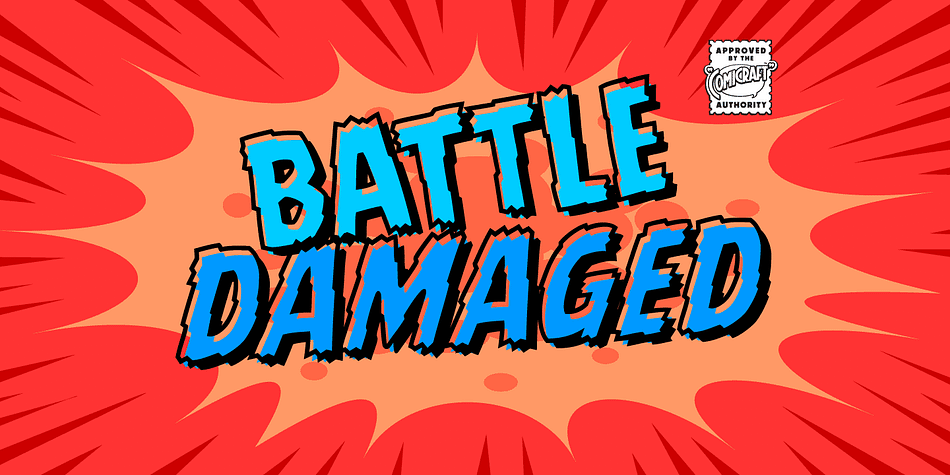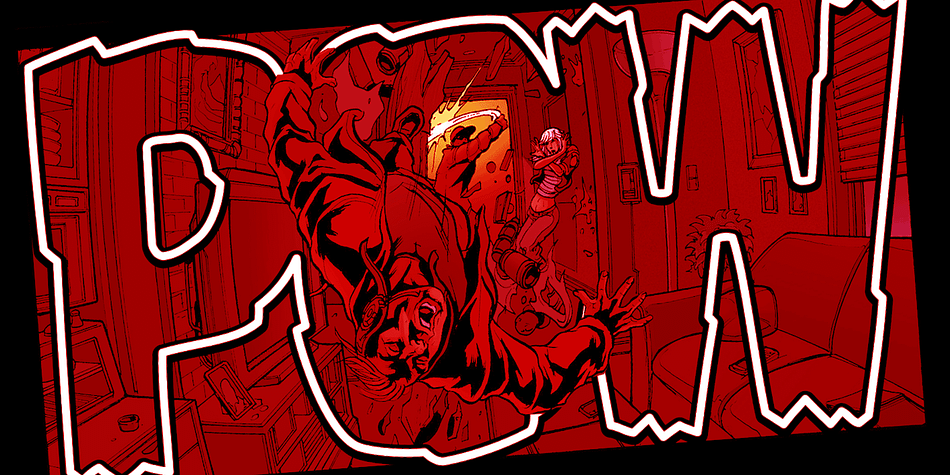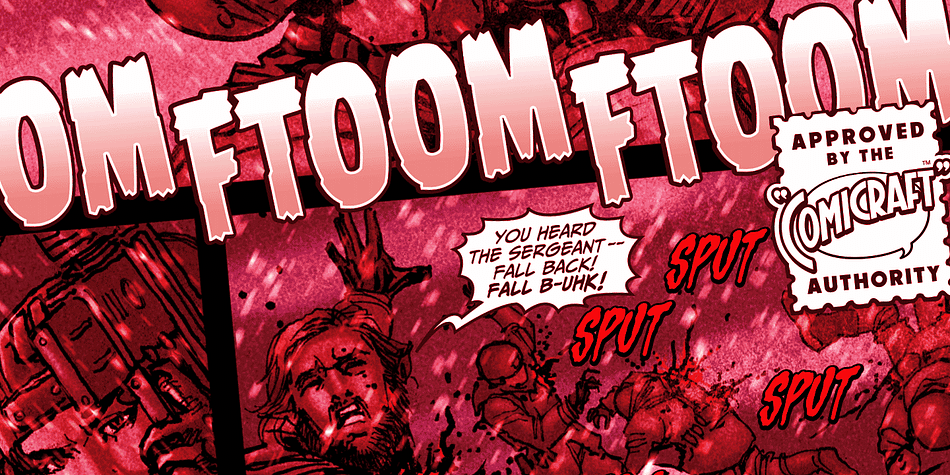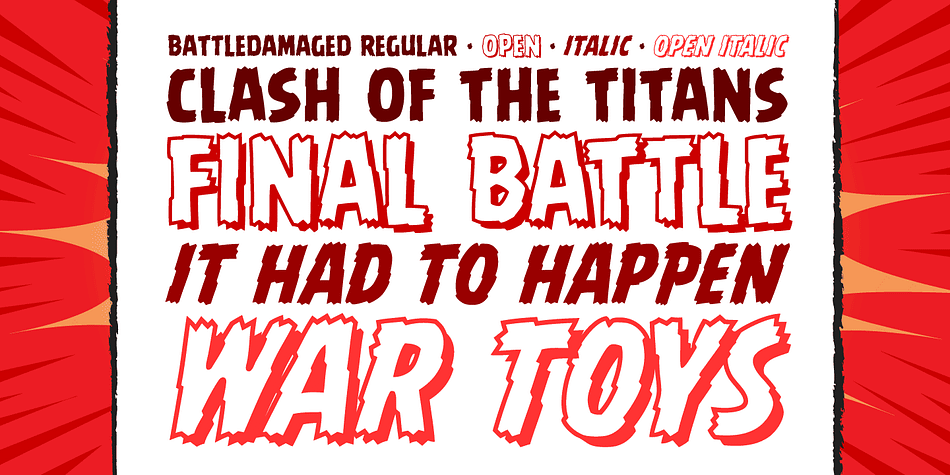
Designed by John Roshell, Battle Damaged is a comic font family. This typeface has four styles and was published by Comicraft.
Some say The Silver Age Will End in Fire; others say The Silver Age Will End in Ice! Know, O Prince, that In Your Darkest Hour, the Masters of Evil Will Live Again! But from The Ashes of the Bitter Taste of Defeat, A New Power will be Unleashed! Lo, There Shall be A Frenzy in a Far Off Land, There Will be a Great Price AND a Great Prize! There Will Be a Bitter Victory in a World Gone Mad—a World You Never Made… Face it, Tigers, You are Captives of The Coming of The Return of The Mad Mysterious Menace of He Who Would Destroy You…This Man, This Monster… This Final Font in our trilogy of Silver Age Display Lettering—BATTLE DAMAGED!